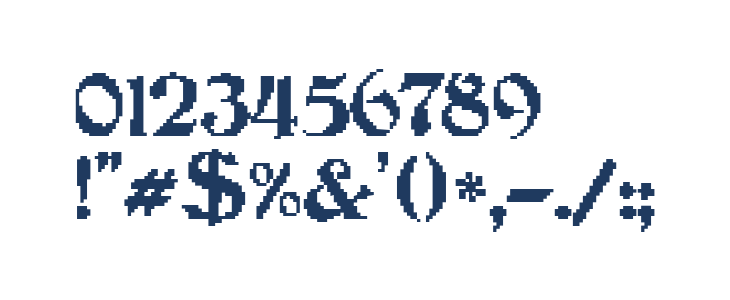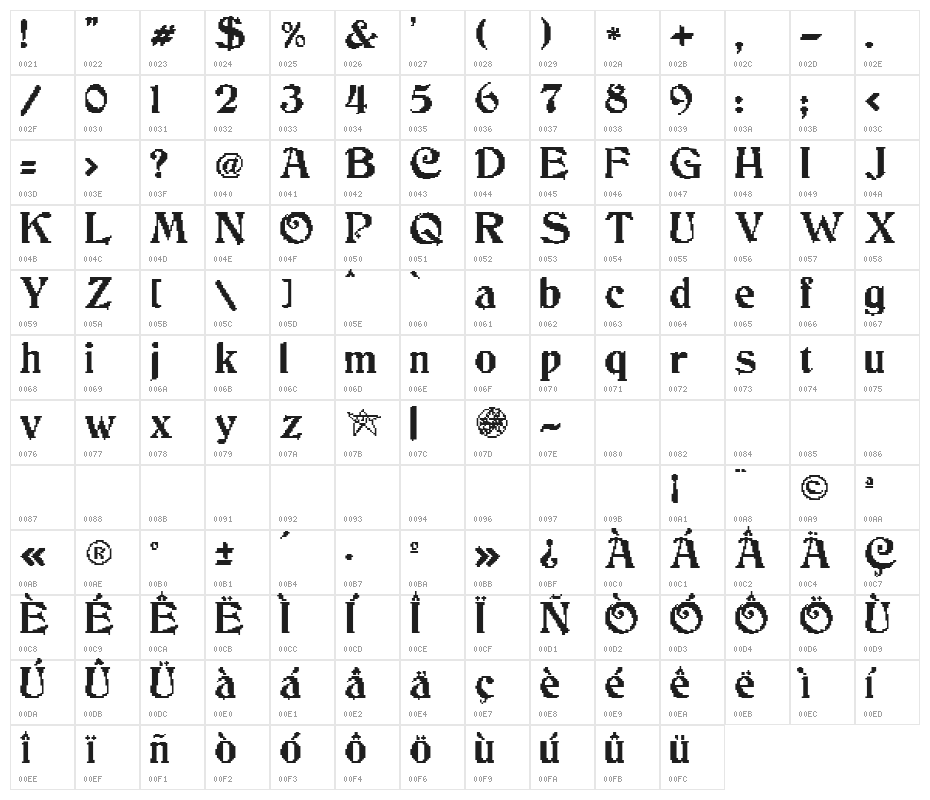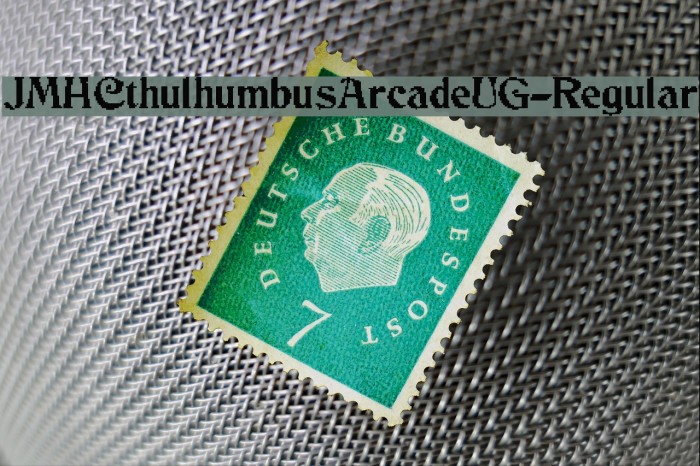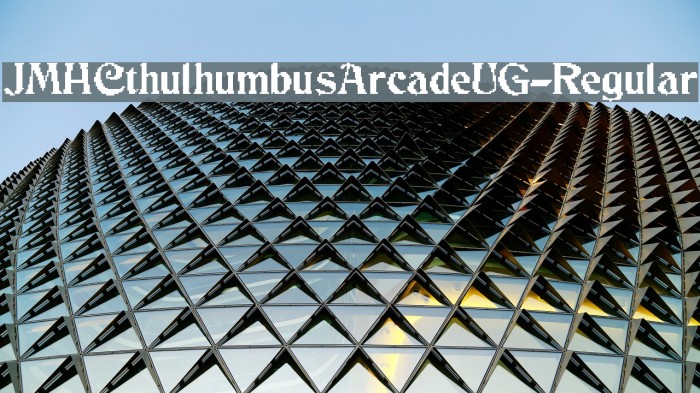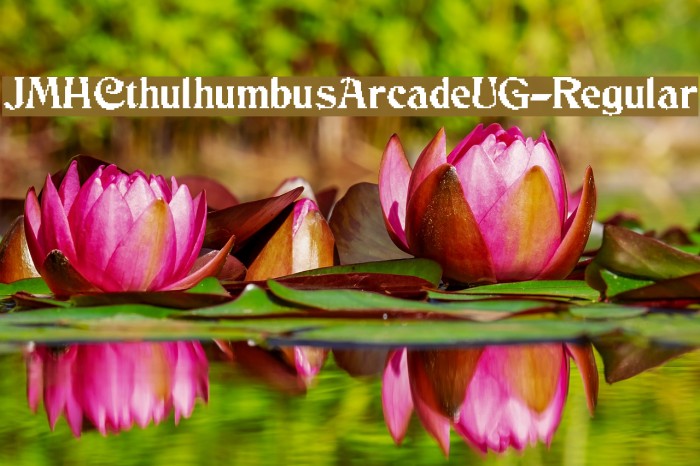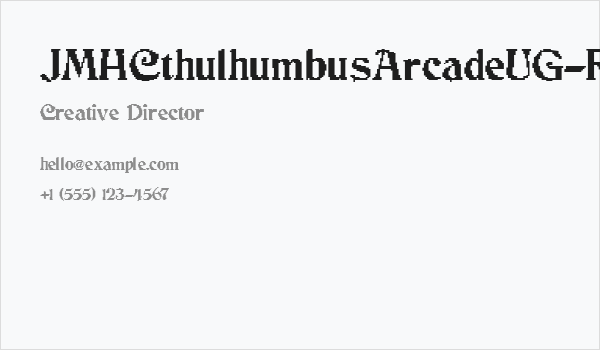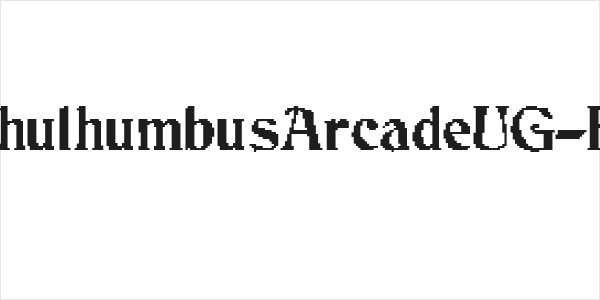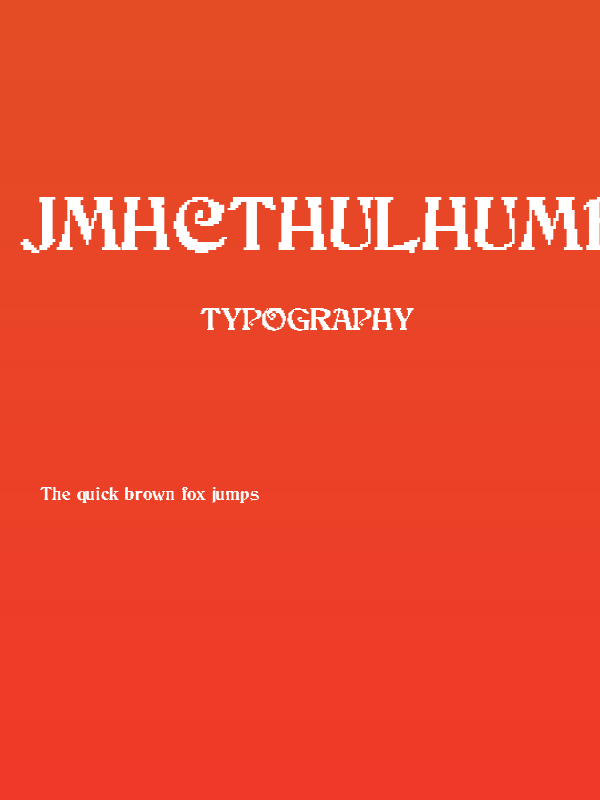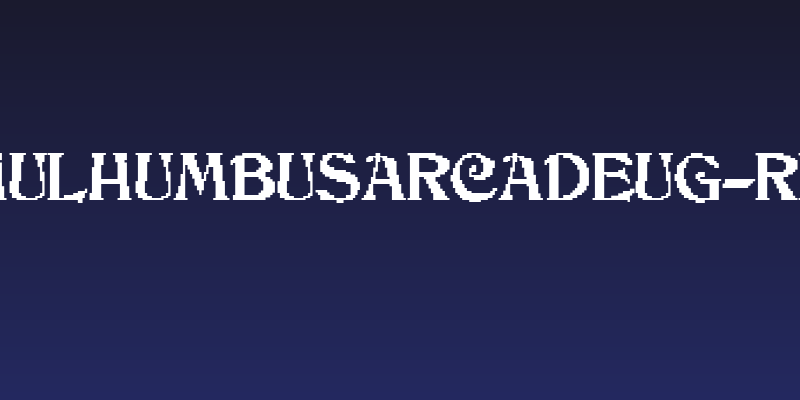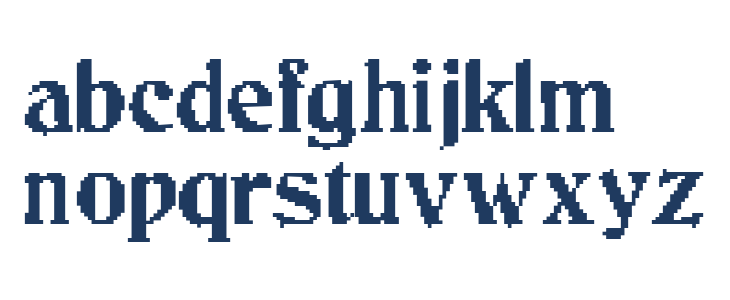
JMHCthulhumbusArcadeUG-Regular Font
JMHCthulhumbusArcadeUG-Regular Description
This font features a bold and distinctive style with a strong presence. The characters are designed with a unique flair, incorporating sharp angles and a slightly gothic influence. The uppercase letters are particularly striking, with a boldness that commands attention. The lowercase letters maintain a consistent style, offering a cohesive look across different text sizes. Numbers and special characters are crafted to match the overall aesthetic, ensuring uniformity. This font is ideal for projects that require a dramatic and eye-catching typeface.